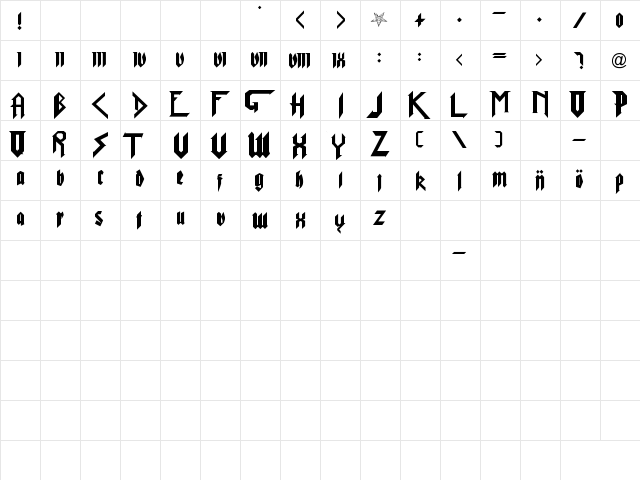
Pure evil 2 Regular Font Preview
Pure evil 2 Regular
Pure evil 2 Regular Font Details
Design Context for Pure evil 2 Typeface
Pure evil 2 is a composed and adaptable typeface that performs quietly and consistently across a wide range of design contexts.